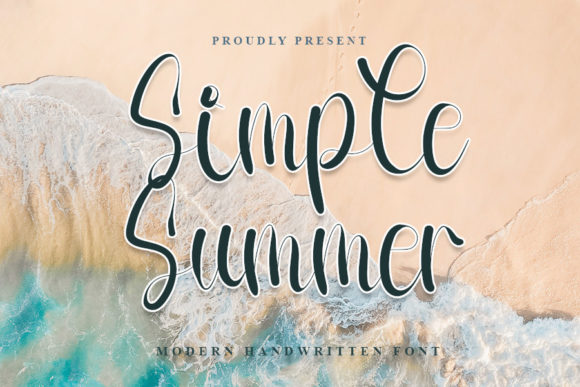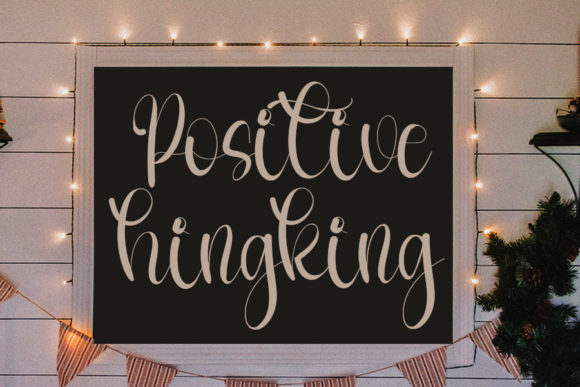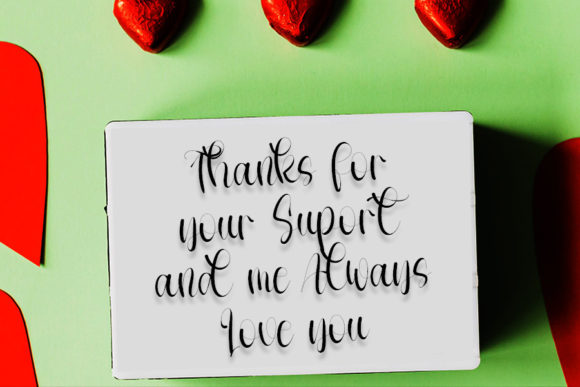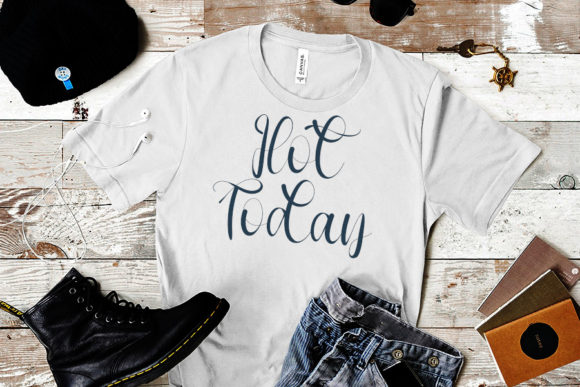
Simple Summer Font
About Simple Summer Font
Simple Summer is a flowing handwritten font. Not too thin and not too thick, balanced and varied, this font was designed to enhance the beauty of your projects.